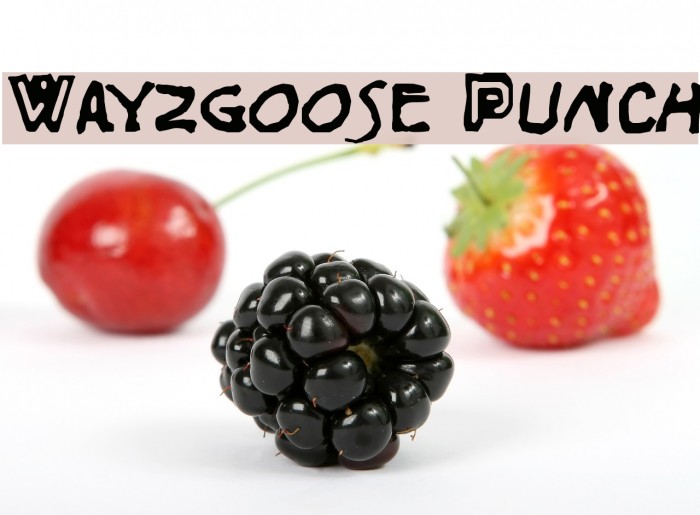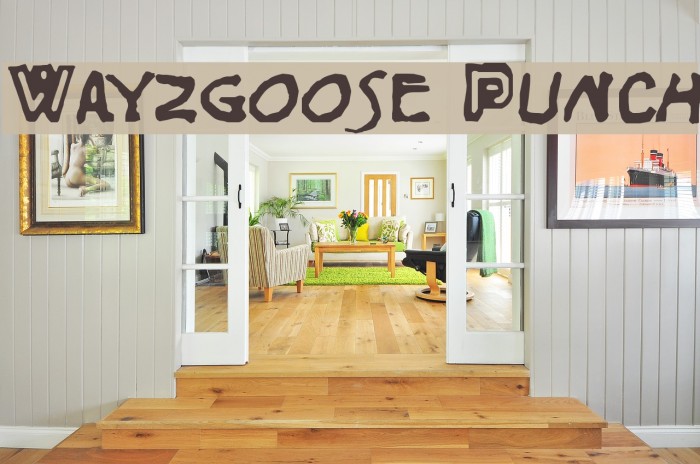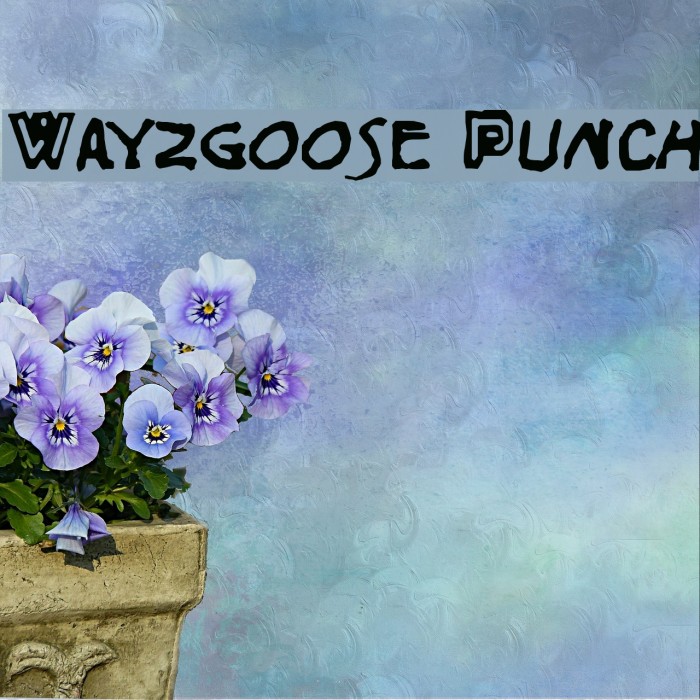
Wayzgoose Punch Font
This font features a bold and dynamic style with a playful and artistic flair. The uppercase letters have a distinct, blocky appearance with irregular edges, giving them a handcrafted look. The lowercase letters maintain this artistic style, with some characters having exaggerated curves and angles. The numbers are equally bold, with a slightly uneven stroke that adds to the overall whimsical feel. Special characters are creatively designed, fitting seamlessly with the rest of the font. This font's unique and eye-catching design makes it ideal for projects that require a strong visual impact.
A bold, artistic font with a handcrafted, playful style.
• Proposed Projects: Ideal for posters, album covers, artistic projects, and branding that requires a bold statement.
• Category: Decorative/Display
• Bold: Yes
• Italic: No
• Weight: Bold
• Width: Normal
• Character Spacing: Normal
• Contrast: Medium
• Overall Style: Decorative
• Use Case: Headlines, Logos, Posters